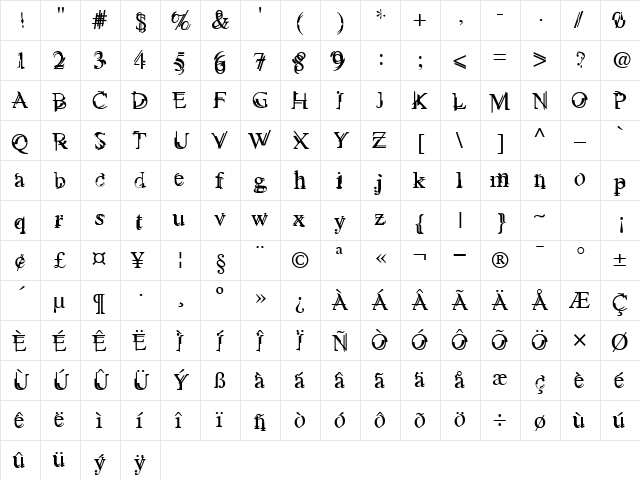
Unserif Regular
Design Context for Unserif Typeface
Unserif brings classic typographic sensibility to the table — its serifs and measured letterforms reflect centuries of print heritage.